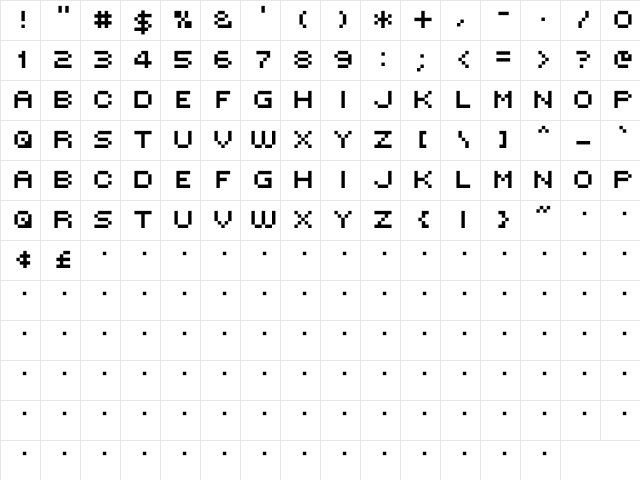
MINI 7 Tight Regular Free Font
MINI 7 Tight Regular
Complete MINI 7 Tight Regular glyph index. Displaying only characters natively supported by MINI 7 Tight Regular font.
Design Context for MINI 7 Tight
MINI 7 Tight is a composed and adaptable typeface that performs quietly and consistently across a wide range of design contexts.